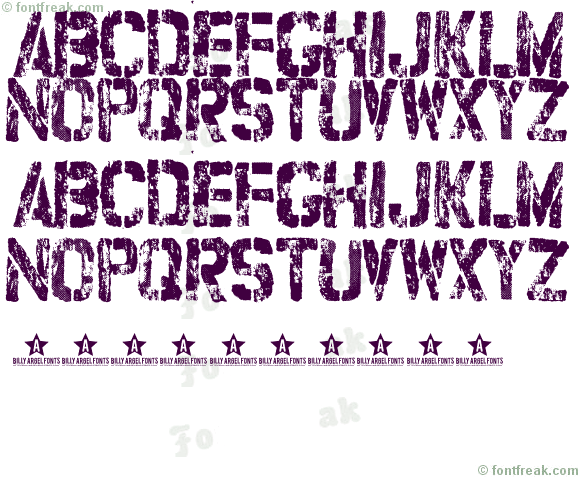
The Refurbished font by Billy Argel Fonts is a striking display typeface that captures attention with its unique, rugged aesthetic. As a decorative font, Refurbished combines an industrial feel with a vintage charm, making it perfect for projects that require a strong visual impact. The font features a bold stroke weight with a distressed finish, giving it an aged, worn look that evokes a sense of authenticity and character. The irregular spacing and varying line thicknesses further enhance its handcrafted appearance, making it stand out in any design context.
Refurbished is versatile and can be utilized in a variety of creative applications. It works exceptionally well for restaurant menus, where its robust style can convey a sense of casual dining. Additionally, it is ideal for movie posters, offering a dramatic flair that captures the essence of action or adventure films. Event planners can make use of this font for wedding invitations, lending a unique touch to the overall design that reflects a couple's personality. Small businesses looking to create memorable branding will find Refurbished an excellent choice for logos and signage, as it helps create a strong visual identity that resonates with customers.
The target audience for this font includes graphic designers, small business owners, and content creators who seek to add a distinctive touch to their projects. Designers will appreciate its versatility and character, while small business owners can leverage its unique style to differentiate their brand in a competitive market.